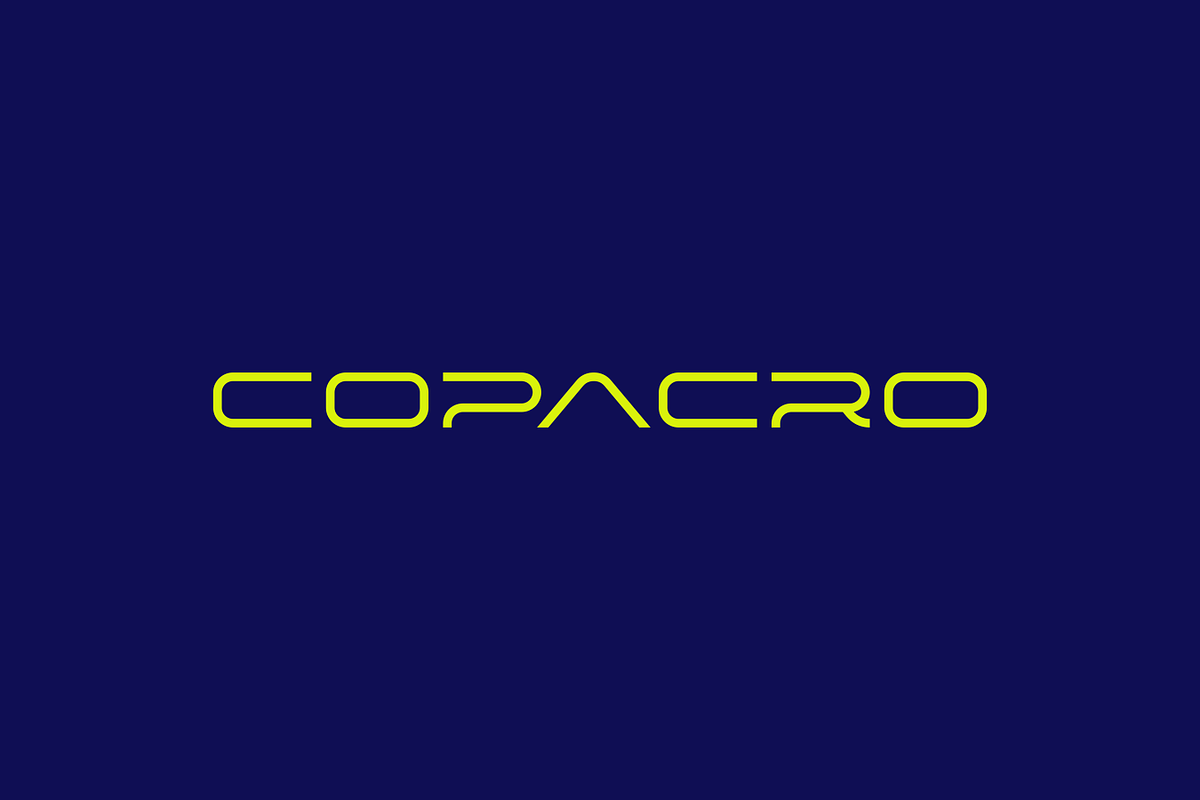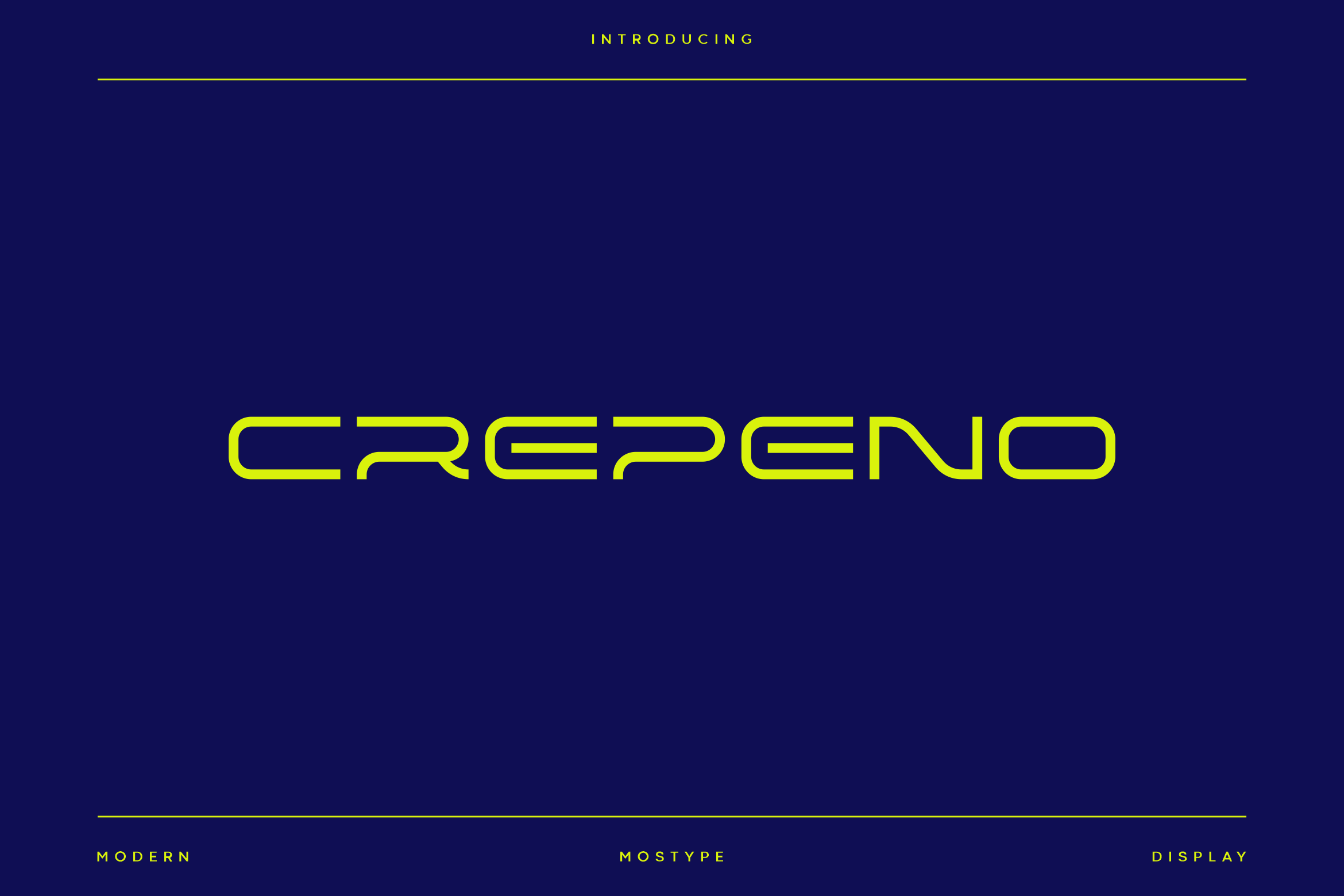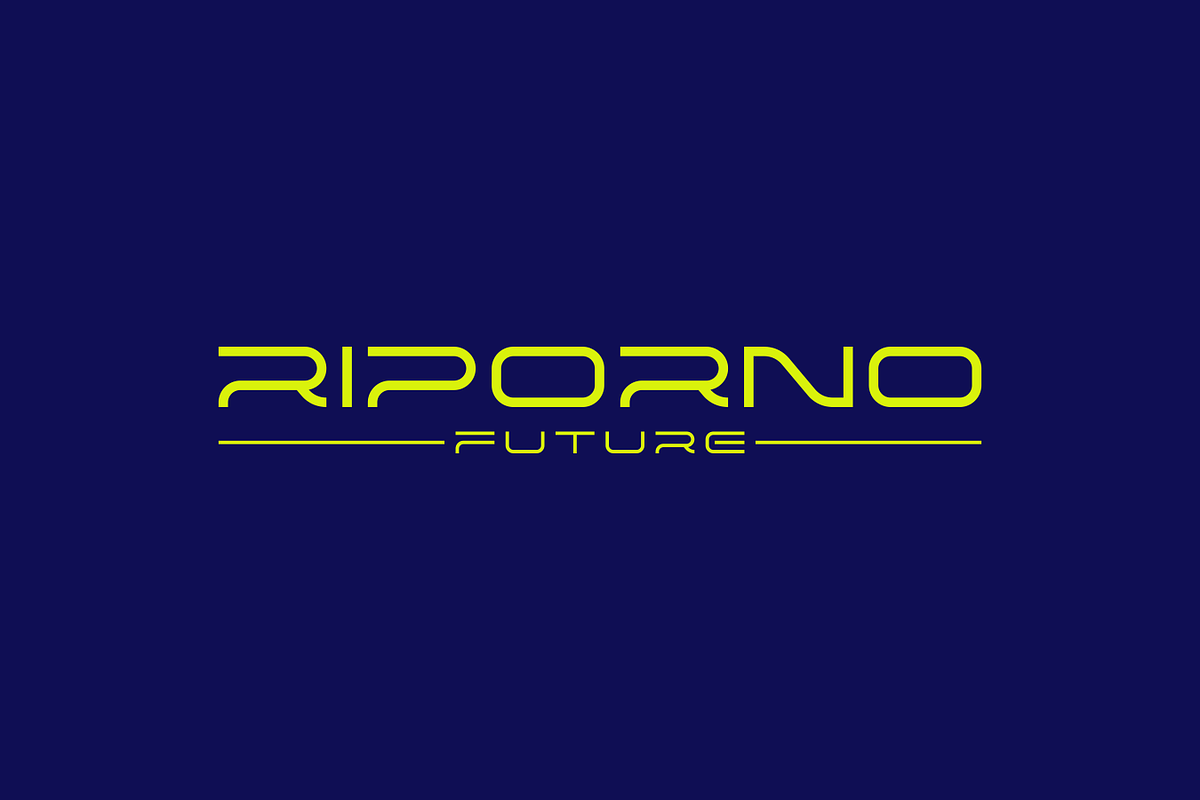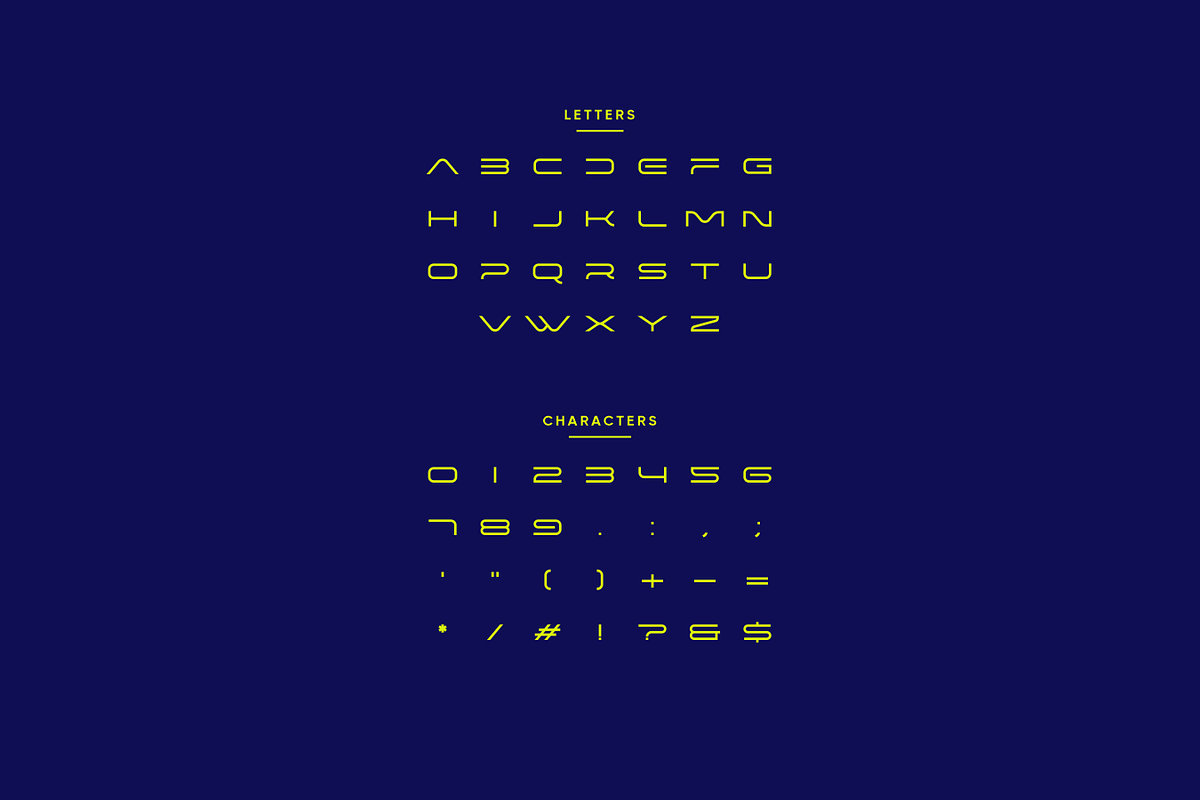
Crepeno - Modern Futuristic Typeface
Crepeno is an unique minimal & modern display typeface that defines a class of it's own. Crepeno is dedicated for display and branding purposes, where this typeface can be a perfect choice for creating logotype, branding, headline, digital ads, marketing material for web & print as well as any type of minimal design.